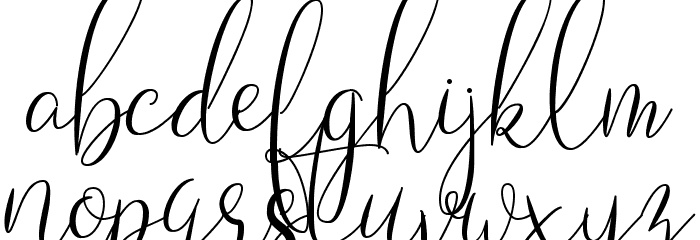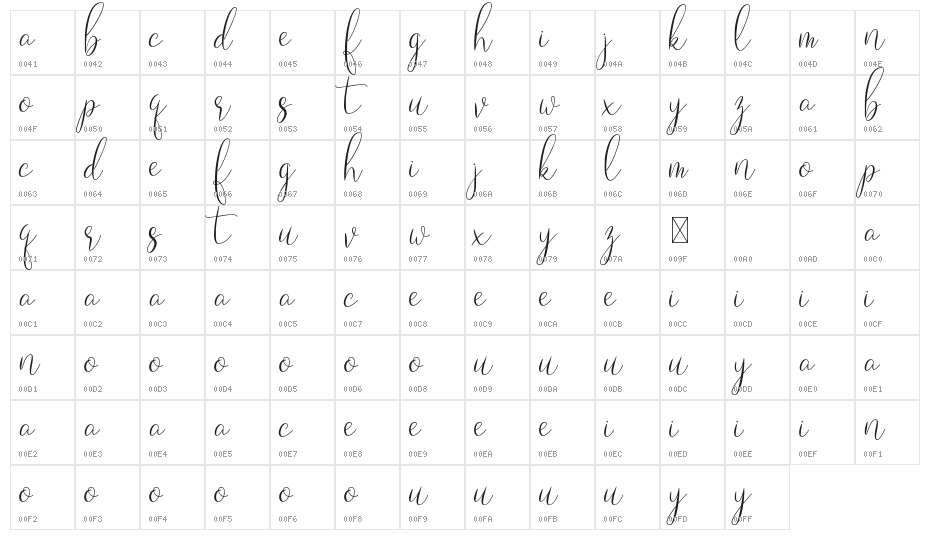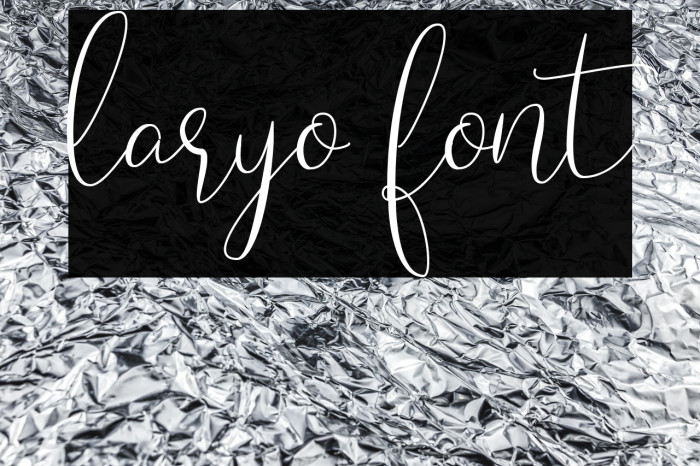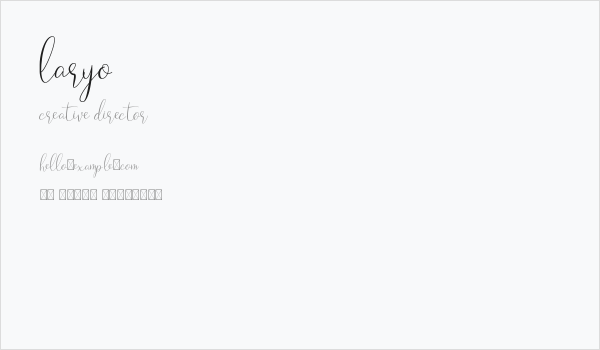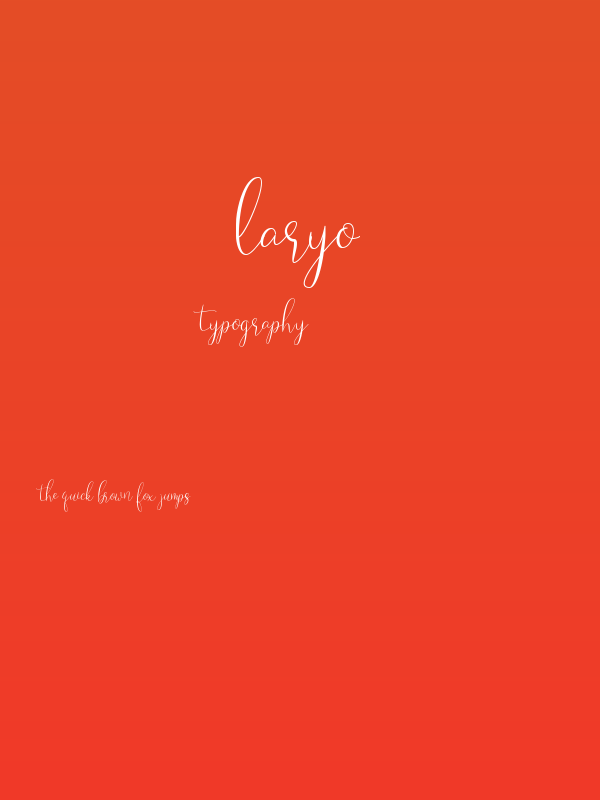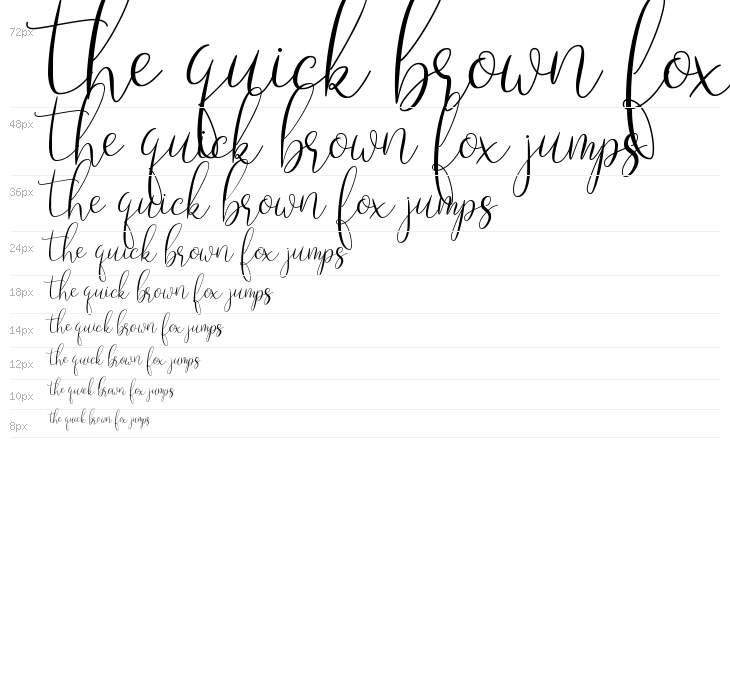
Laryo Font
This font exudes elegance and sophistication with its flowing, cursive style. The characters are intricately designed with graceful loops and swirls, creating a sense of fluidity and movement. The strokes are delicate yet confident, offering a refined aesthetic that is both timeless and modern. Each letter seamlessly connects to the next, enhancing the script's natural rhythm and harmony. The font's overall appearance is both decorative and legible, making it suitable for a variety of design applications where a touch of elegance is desired.
An elegant, flowing cursive font with graceful loops and swirls.
- Proposed Projects: Ideal for wedding invitations, elegant branding, personal stationery, and decorative quotes.
- Character Spacing: Tight
- Overall Style: Elegant, Decorative
- Use Case: Logos, Invitations, Decorative text